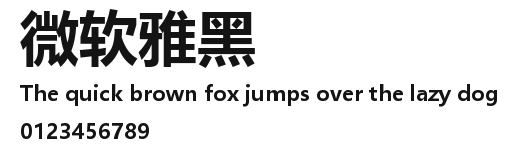
• Font Name: 微软雅黑
• Full Font Name: Microsoft YaHei Gras
• Designer: 北大方正电子有限公司
• Description: The font glyphs are certified compliant with China standard GB18030-2000 with the font name Founder Lan Ting Hei. Microsoft Licensed the font glyph from Beijing Founder Electronics Co. Ltd. 本字库字形从北京北大方正电子有限公司授权。本字库字形 以字库名方正兰亭黑通过中国标准符合性检测,符合中国 GB18030-2000标准。
• Font Name: Microsoft YaHei UI
• Full Font Name: Microsoft YaHei UI Gras
• Designer: 北大方正电子有限公司
• Description: The font glyphs are certified compliant with China standard GB18030-2000 with the font name Founder Lan Ting Hei. Microsoft Licensed the font glyph from Beijing Founder Electronics Co. Ltd. 本字库字形从北京北大方正电子有限公司授权。本字库字形 以字库名方正兰亭黑通过中国标准符合性检测,符合中国 GB18030-2000标准。
微软雅黑.ttc [TrueType Collection] is a modern, elegant sans-serif font designed for ultimate readability and visual harmony. Perfect for branding, headlines, web design, and print materials.